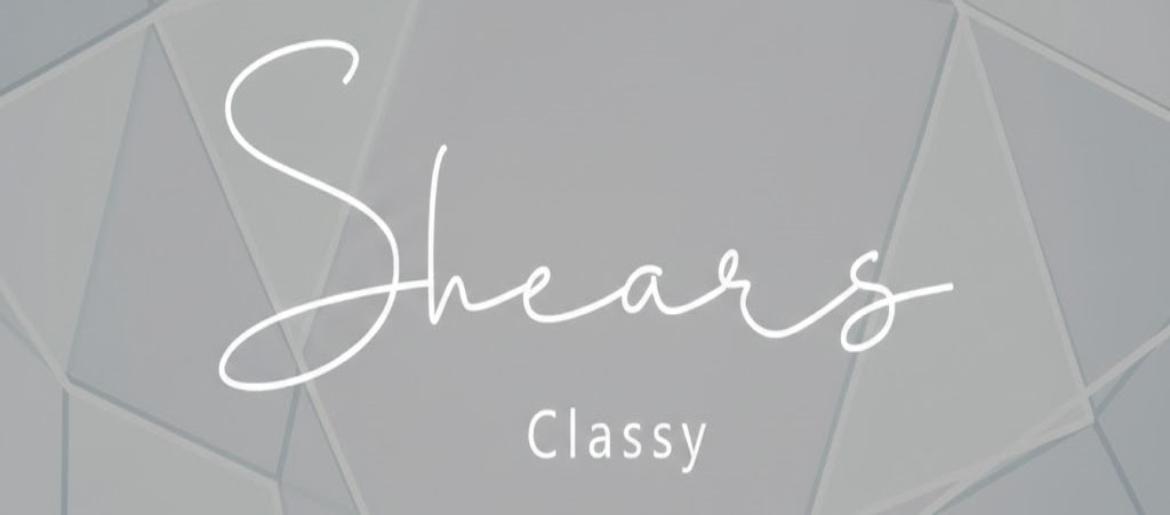
Shears Script Font
Shears Script Font is an elegant handwritten script typeface featuring flowing strokes and refined calligraphic styling. It delivers a graceful and expressive personality, making it suitable for invitations, branding, logos, packaging, and decorative typography. Its smooth connections and stylish charm help designs stand out while fitting beautifully into artistic and sophisticated free fonts collections.
➤ Font Name: Shears Script
➤ Designer:
Font ysia
➤ Style: Handwritten